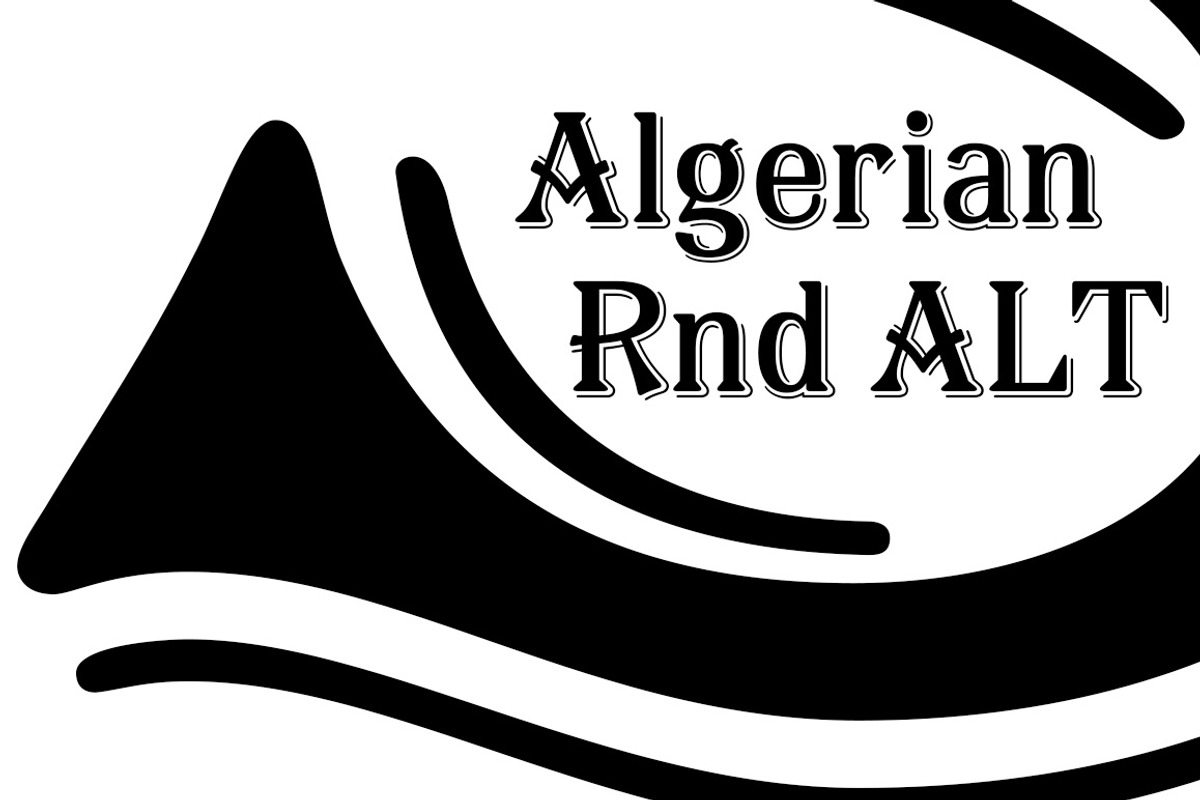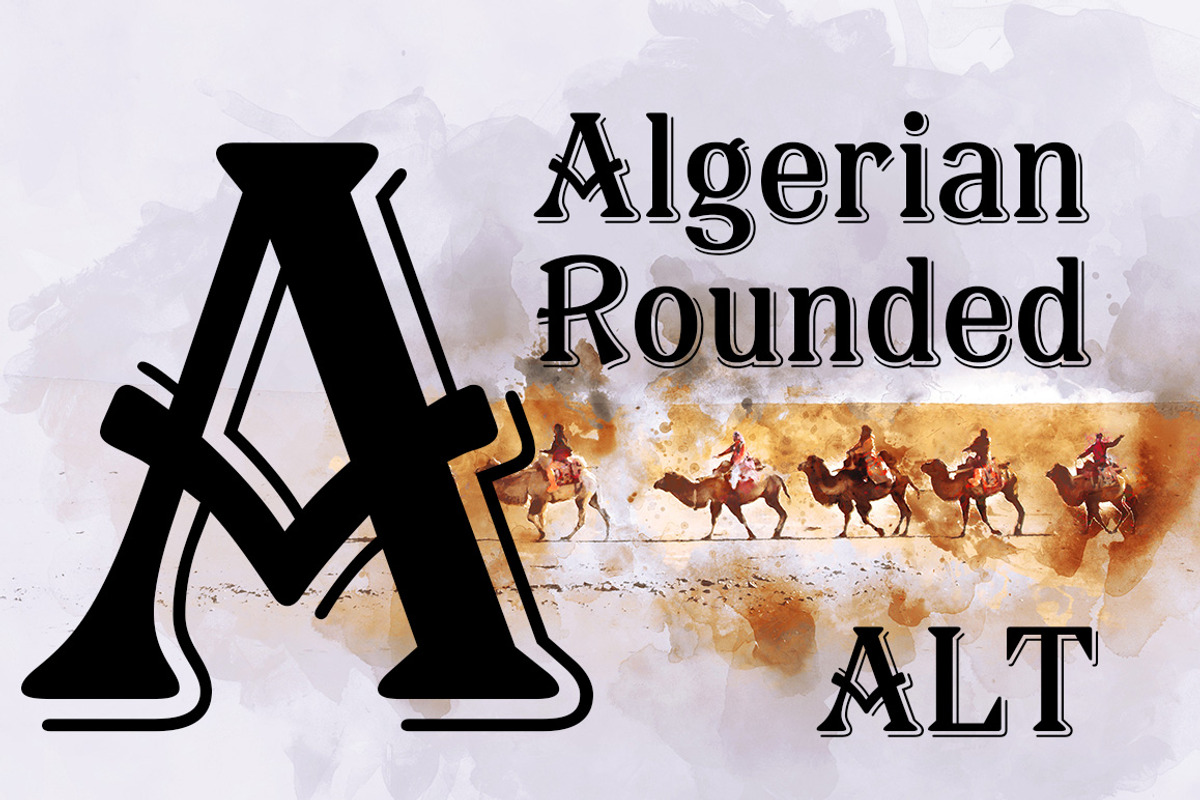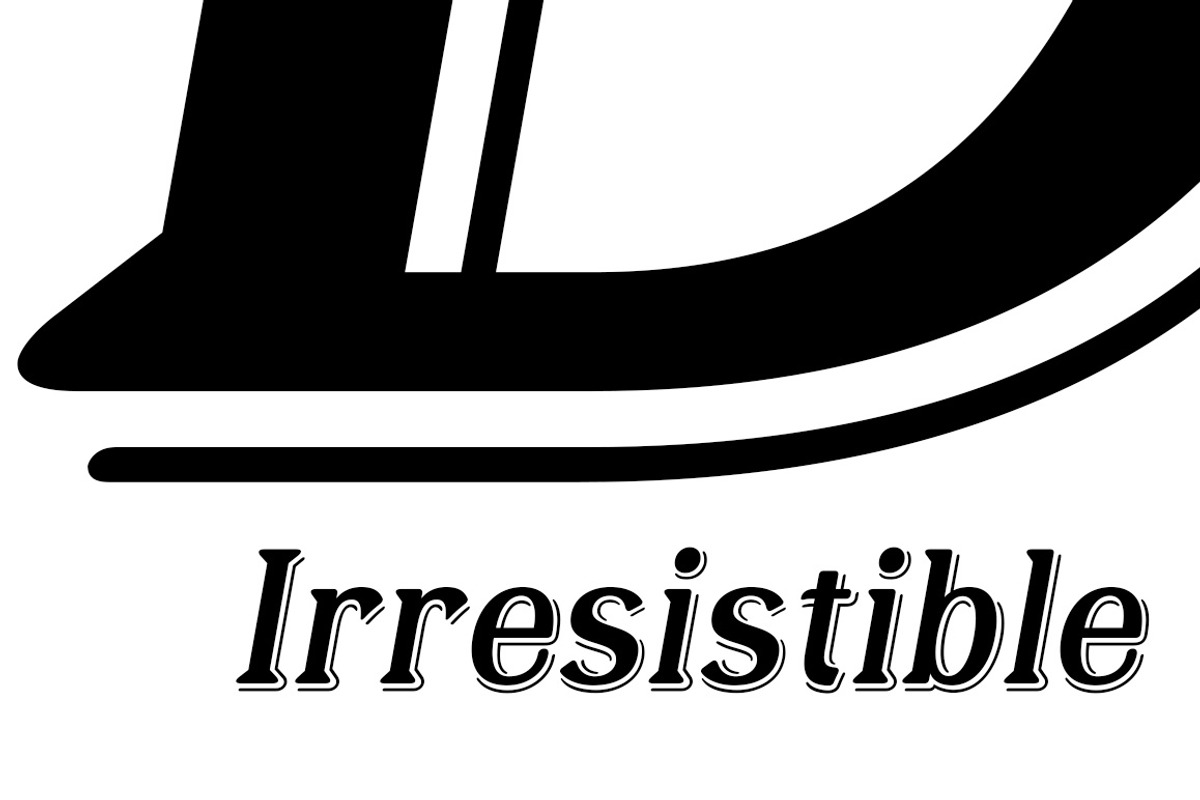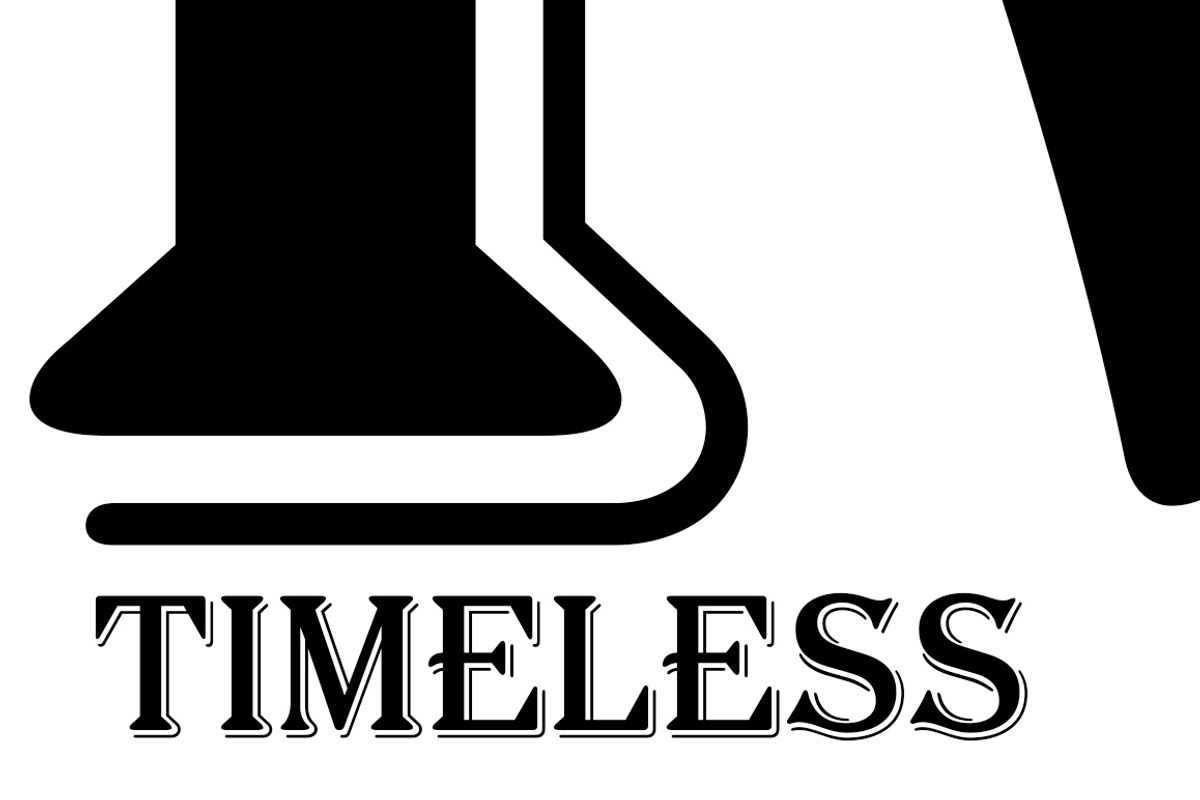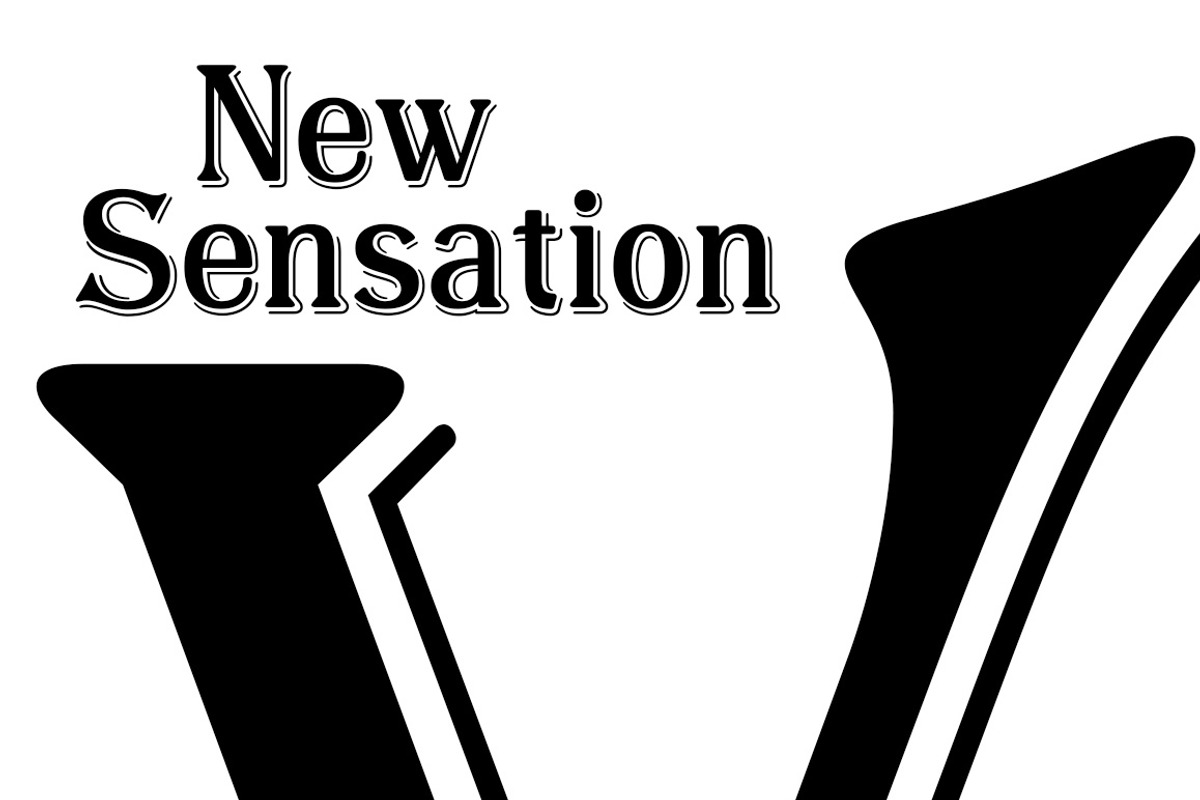
Algerian Rounded Alt
It's finally here, Algerian Rnd is an all new version of our Algerian Mesa font with rounded soft corners and serifs.
Imagine the impact Algerian Rnd will have on your product label and packaging.
Algerian Rnd is a new timeless beauty that you'll find many uses for in your logos and advertising.
Algerian Rnd is for every generation, put it to work in your next project, you're going to love this font.
Algerian Rnd is ideal for product logos, labels, packaging, t-shirt designs and other merch.